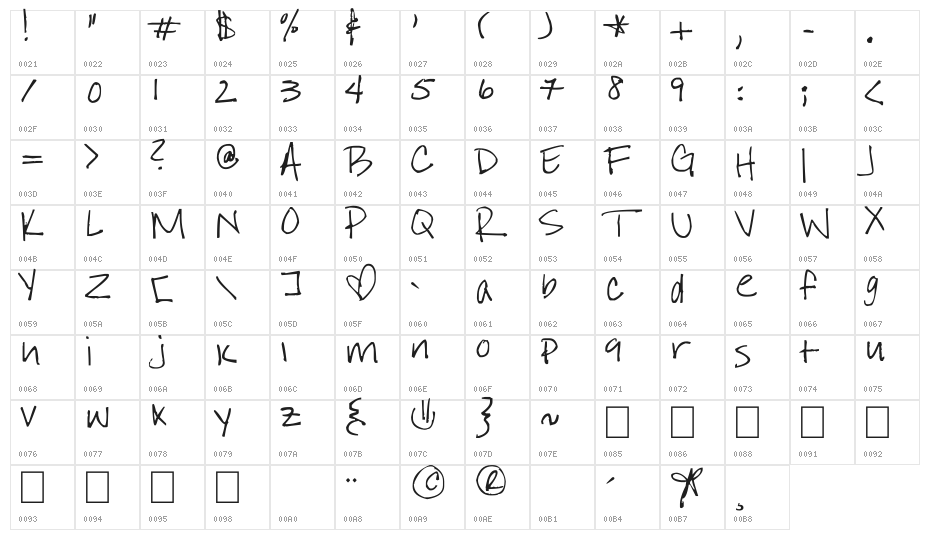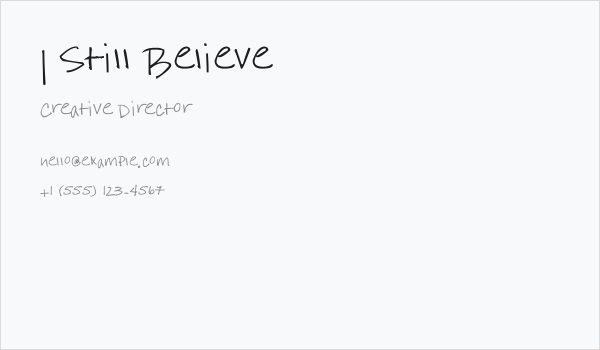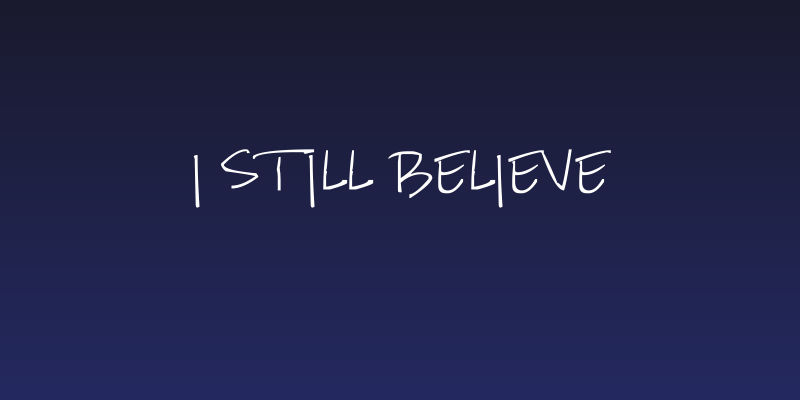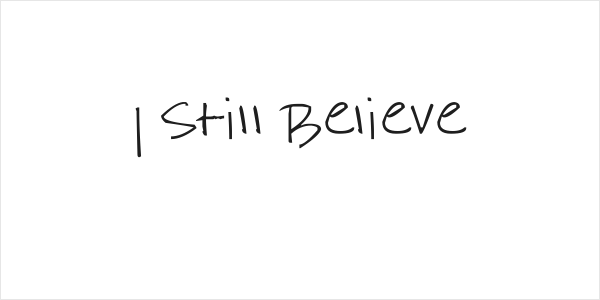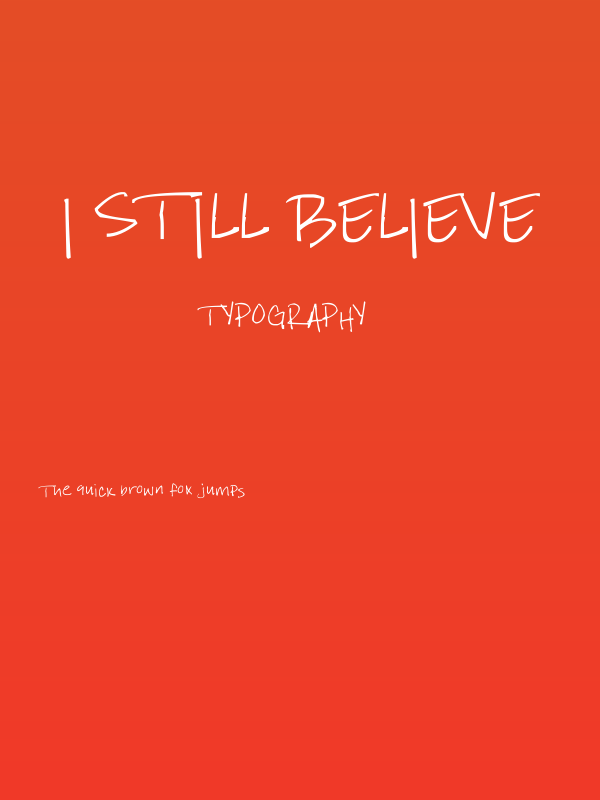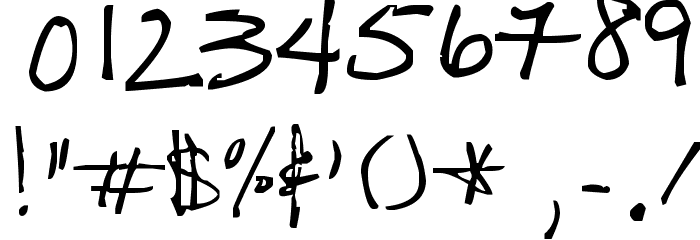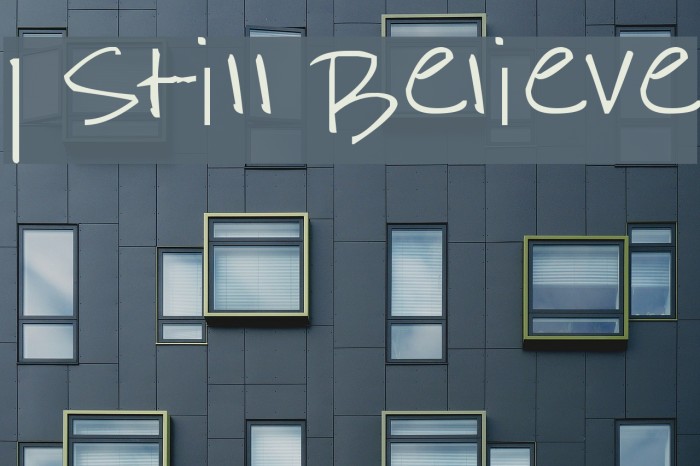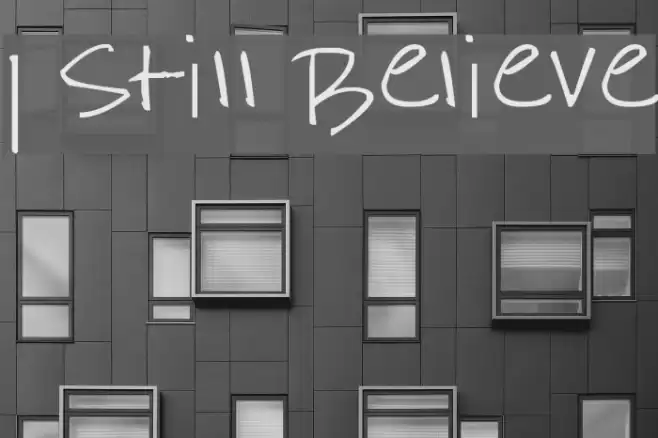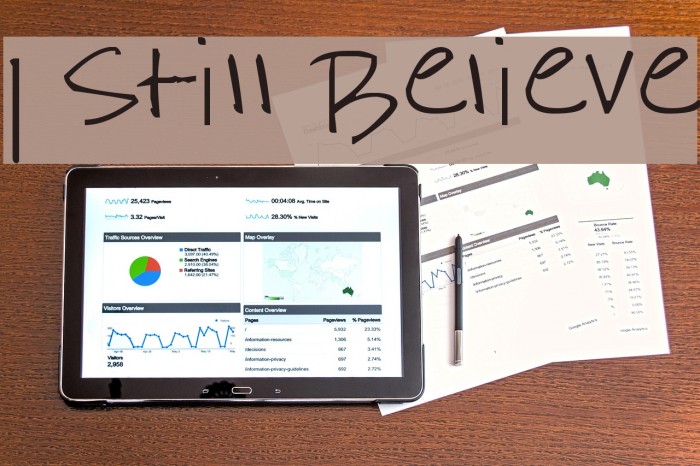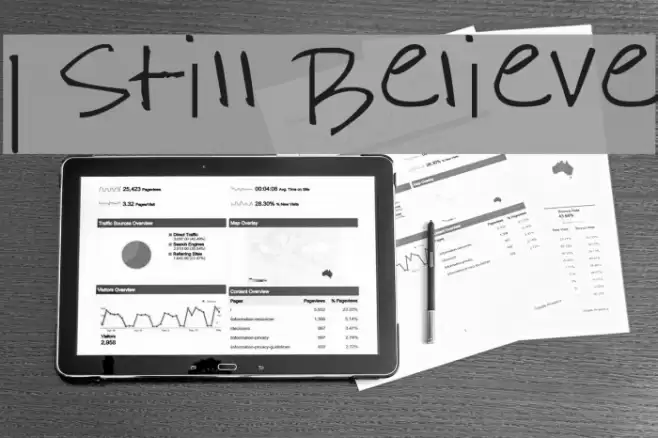
I Still Believe Font
I Still Believe Description
This font exudes a casual, handwritten style that mimics the natural flow of pen on paper. The letters are slightly irregular, giving it an authentic and personal touch. The uppercase and lowercase letters maintain a consistent style, with a playful and informal appearance. Numbers and special characters follow the same handwritten aesthetic, making the font versatile for various creative projects. The strokes are moderately thick, providing good readability while retaining a relaxed vibe. This font is ideal for projects that require a personal or informal tone, such as greeting cards, personal blogs, or creative branding.
| Overall Style | Casual, Informal |
| Use Case | Headlines, Informal text, Creative projects |
| Proposed Projects | Greeting cards, personal blogs, creative branding, informal invitations. |